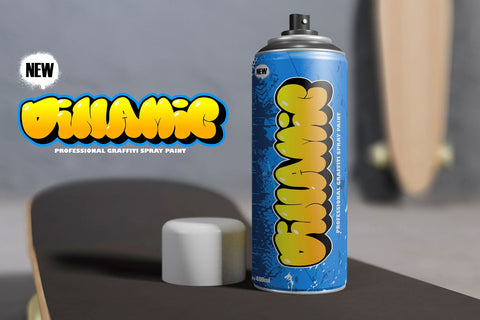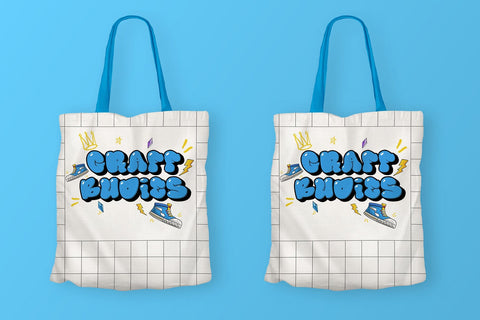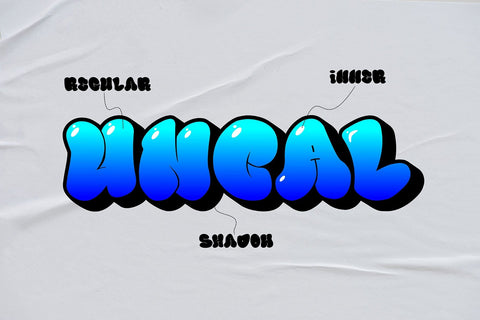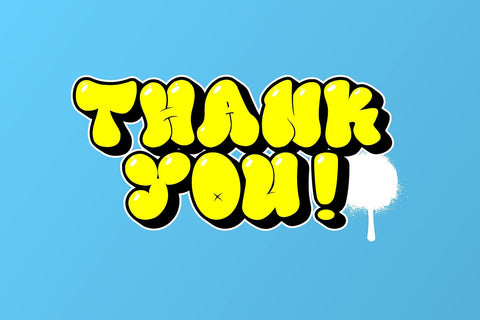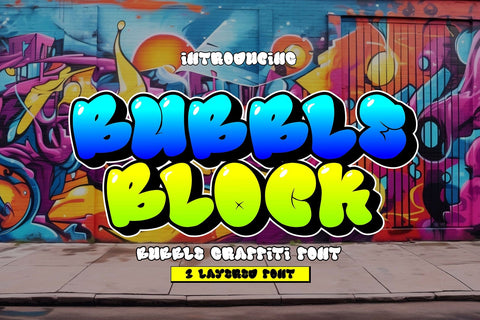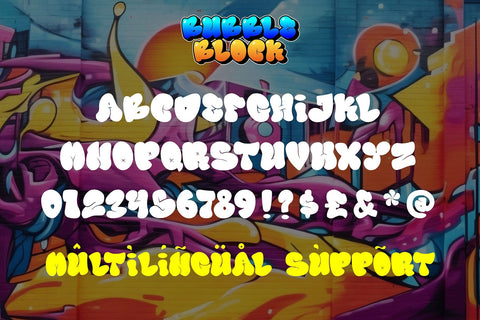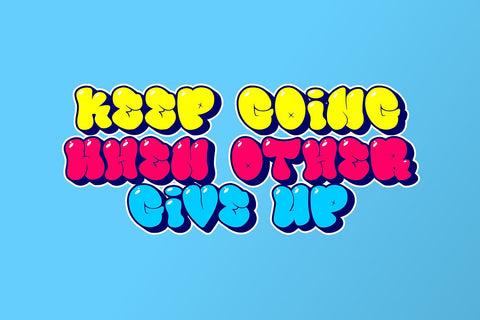
Bubble Block - 3d Balloon Graffiti Font
"Bubble Block" is a 3D layered graffiti font that encompasses solid, shadow, and inner shadow styles, offering the tools to create a three-dimensional appearance in your text. Fonts with layered styles like this are often utilized in graffiti art, posters, or other designs that aim to create a prominent 3D effect.
- Graffiti Characters looks